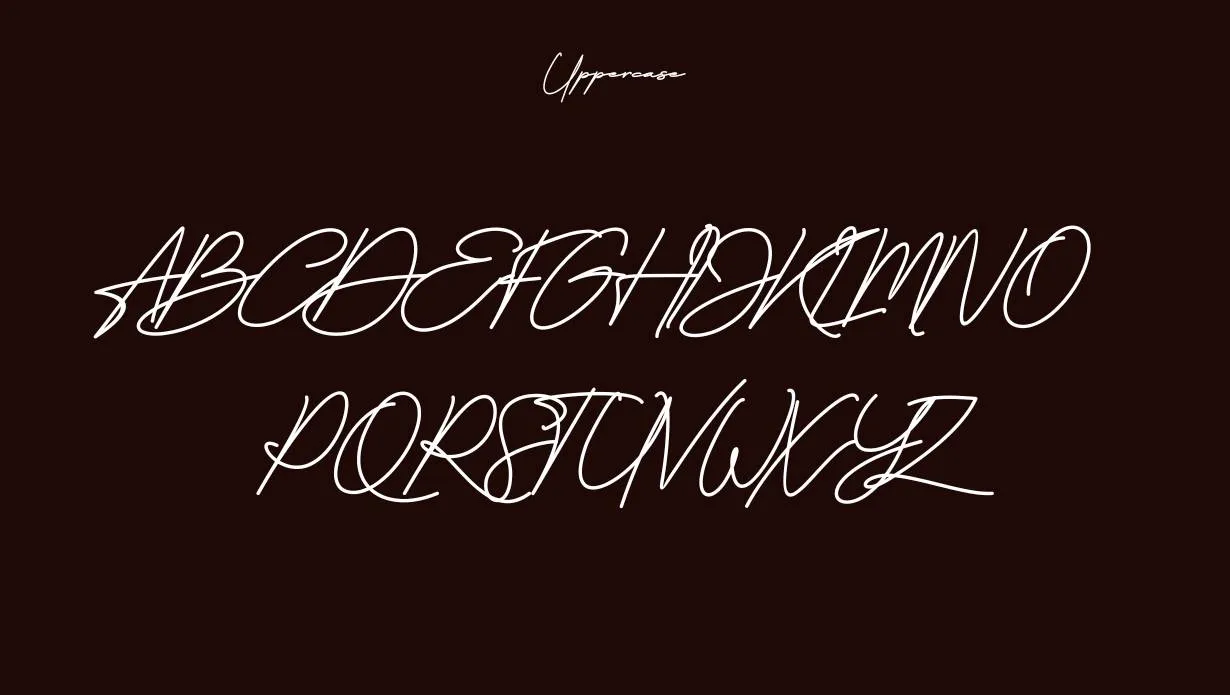
Today, we’re going to talk about a stunning and attractive signature-style font that can add an appealing and fantastic touch to your project and make it incredible.
The Doctor Font is a script font that was created by Putra Cetol Studio along with OpenType and TrueType formats.
This typeface also includes stylish characters in uppercase, lowercase, numbers, special characters, etc. To make attractive and appealing text try this font with hoodson font.